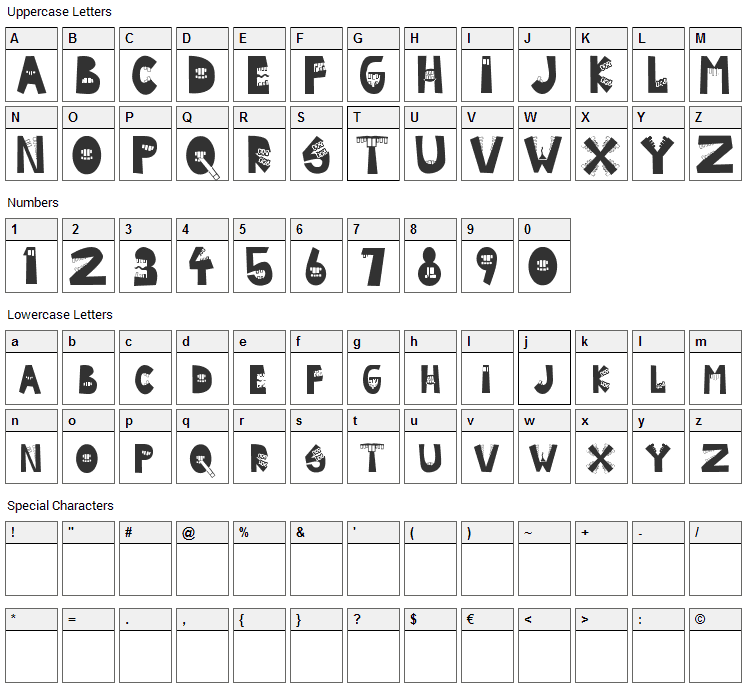
Byte Caps Font
Here's another crejaculation from Amsterdam...
(What?)
A font!
(jeeee, I have never had a font in my life.... What does it eat?)
Well, it eats only toner and pixels if you set it free now and then.
(Toner and pixels? Are these available in every supermarket?)
Sure. But watch out, if this font sees it, it'll bite at it.
(Bite? O jeeeeeeee, I have never seen a font biting at toner and pixels before!)
Now you do.
(cool, I will probably use this font every day)
This crejaculation has been crejaculated by Sander Kessels, Amsterdam. It may not be used for any commercial use. It's free. If someone charges you for this piece of font, you are a firstclass dummy. The font contains only Caps and Numbers.